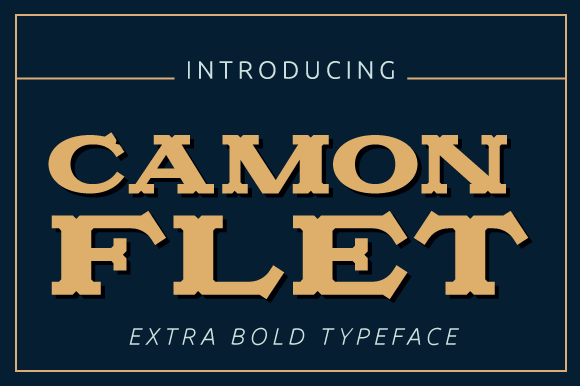
Camonflet Font
Journey into the world of typography with Camonflet, a striking and captivating serif font. Unleash your creativity and embark on a visual voyage that will leave your audience spellbound. With its bold strokes and vintage charm, Camonflet is the perfect choice for those seeking to make an impact.
Adorn your designs with the elegance and sophistication of Camonflet. Its timeless beauty adds a touch of class to any project, whether it's a captivating logo, an alluring poster, or a stunning website. Camonflet's versatility knows no bounds, making it the ideal choice for a wide range of creative endeavors.
Transport yourself to the golden era of typography with Camonflet. Its carefully crafted curves and intricate details evoke a sense of nostalgia, while its contemporary twist ensures it remains relevant and impactful. Stand out from the crowd with Camonflet, a font that exudes confidence and timeless style.
Experience the power of Camonflet and witness the transformation of your designs. Its bold presence demands attention, while its refined elegance ensures a lasting impression. Join the ranks of creative visionaries who have discovered the magic of Camonflet and elevate your projects to new heights.
Embrace the boldness, embrace the vintage charm, embrace Camonflet. Unveil the limitless possibilities and embark on a creative journey that will leave you inspired and exhilarated. Let Camonflet be your guide as you craft designs that resonate with your audience and leave an indelible mark on the world of visual communication.